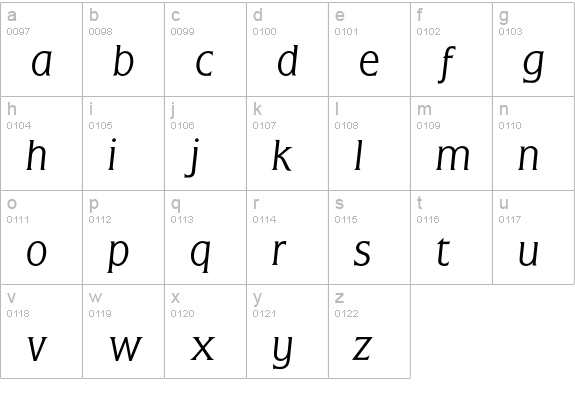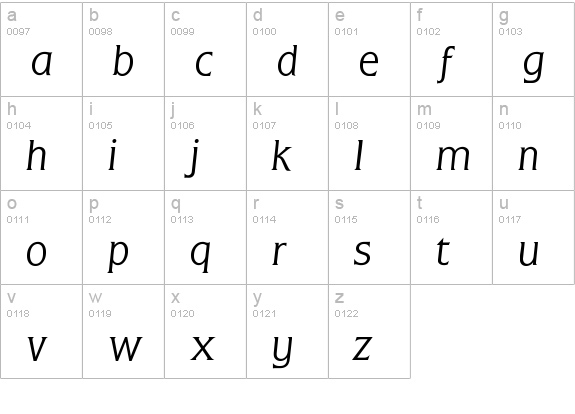
Flange BQ Light Italic Font Details
Flange BQ Light Italic is a refined, elegant, italic variant in the Flange typeface family \xE2\x80\x94 well suited to elegant body text, refined sub-headings, and luxury branding.
Flange BQ Light Italic font is a modern and elegant typeface that exudes sophistication and style. Its sleek and slender letterforms add a touch of class to any design project. The italicized version of Flange BQ Light offers a sense of movement and grace, making it perfect for emphasizing text or creating a sense of elegance. This versatile font is ideal for use in branding, editorial design, and more. Best of all, Flange BQ Light Italic font is available for free download at FontsMarket.com. Simply head over to the website to access this stunning font and elevate your designs with its unique charm and flair. Don't miss out on the opportunity to add Flange BQ Light Italic to your font collection today!